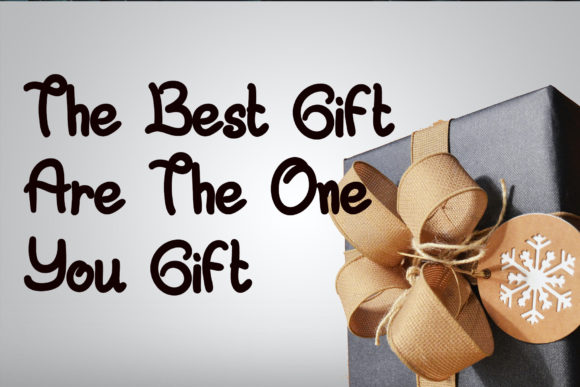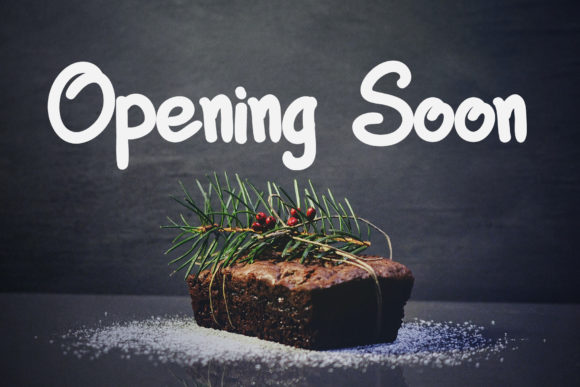
Get Ready to Deck the Halls with Awesome Christmas Font
Have you ever sat down at your desk, staring at a blank page, trying to bring a creative idea to life? It’s that moment when the perfect font can make all the difference. For designers, the right font can elevate a project from ordinary to extraordinary.
That’s where Awesome Christmas Font comes in – a playful handwritten font that’s sure to add a fun and festive touch to your designs. Whether you’re creating wedding invitations, thank you cards, or quotes, this font is the perfect way to bring a smile to your audience’s faces. As a designer, you know how valuable it is to have a versatile font that can be used across various projects, from greeting cards to logos and business cards.
- Unique Characteristics: The Awesome Christmas Font features a unique blend of festive and modern elements, with intricate details and ornaments that evoke a sense of holiday cheer. Its bold and playful style makes it perfect for creating eye-catching designs.
Designer Review: Awesome Christmas Font
Overall, I think the Awesome Christmas Font has some great qualities, but it’s not without its limitations. ✨ Let’s start with the positives.
- The font has a really fun, festive feel to it, perfect for holiday-themed projects.
- The character set is comprehensive, including all the necessary punctuation and special characters.
- The font is well-designed, with a clear and readable style that’s easy on the eyes.
However, there are a few things that might hold you back from using this font as your go-to choice. ⚠️ Here are some limitations to consider:
- The font is a bit overused, and you may find it in many other holiday-themed designs.
- The design is a bit too playful for some projects, and may not be suitable for more serious or professional work.
- The font file size is a bit larger than average, which may be a concern for projects with limited storage space.
Overall, I’d give the Awesome Christmas Font 3.5 out of 5 stars. It’s a fun and festive font that’s perfect for holiday projects, but may not be the best choice for more serious or professional work.
For a more festive look, try combining Awesome Christmas Font with other holiday-themed elements, such as snowflakes or holly.
For a more polished look, try using Awesome Christmas Font in conjunction with other design elements, such as ornaments or garlands.
For a more festive look, try combining Awesome Christmas Font with other holiday-themed graphics, such as snowmen or reindeer.
Awesome Christmas Font is perfect for:
- Creating holiday greeting cards and invitations.
- Designing festive social media posts and ads.
- Adding a touch of holiday cheer to your website or blog.
Remember to have fun and get creative with Awesome Christmas Font